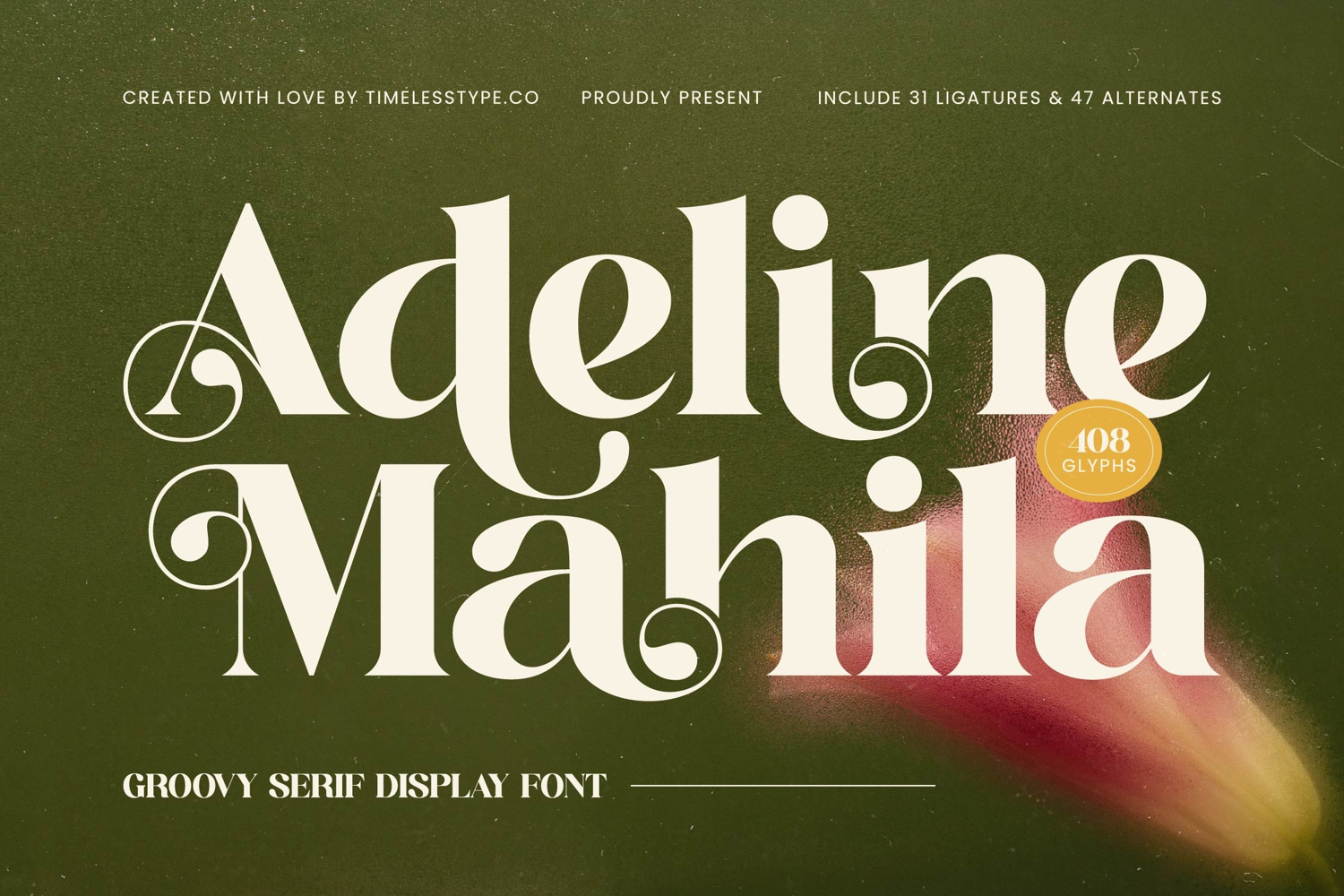
Adeline Mahila - Groovy Serif Display Font
Adeline Mahila
Adeline Mahila Italic
Adeline Mahila - Groovy Serif Display Font
Unleash a captivating blend of vintage charm and contemporary elegance with Font Adeline Mahila - Groovy Serif Display Font Serif Display. This exquisite typeface commands attention with its distinctive high-contrast serifs and graceful curves, embodying a truly unique aesthetic. Perfect for designers seeking to infuse projects with an immediate sense of style and sophistication, its charming retro-modern appeal ensures your message is not just seen, but felt.
Discover unparalleled design flexibility with the comprehensive character set of Font Adeline Mahila - Groovy Serif Display Font Serif Display. Boasting an impressive collection of 31 ligatures and 47 alternates, along with 408 glyphs, this font empowers you to craft truly bespoke headlines and logos. With its extensive multilingual support, Font Adeline Mahila - Groovy Serif Display Font Serif Display adapts seamlessly across global markets, making it incredibly versatile for international projects.
Font Adeline Mahila - Groovy Serif Display Font Serif Display is your ultimate choice for elevating luxury branding, exclusive packaging, and high-impact editorial designs. Its sophisticated presence makes it perfect for magazines, upscale fashion campaigns, elegant invitations, and memorable product labels. This font ensures your creations exude a premium, authoritative flair that resonates deeply with discerning audiences.